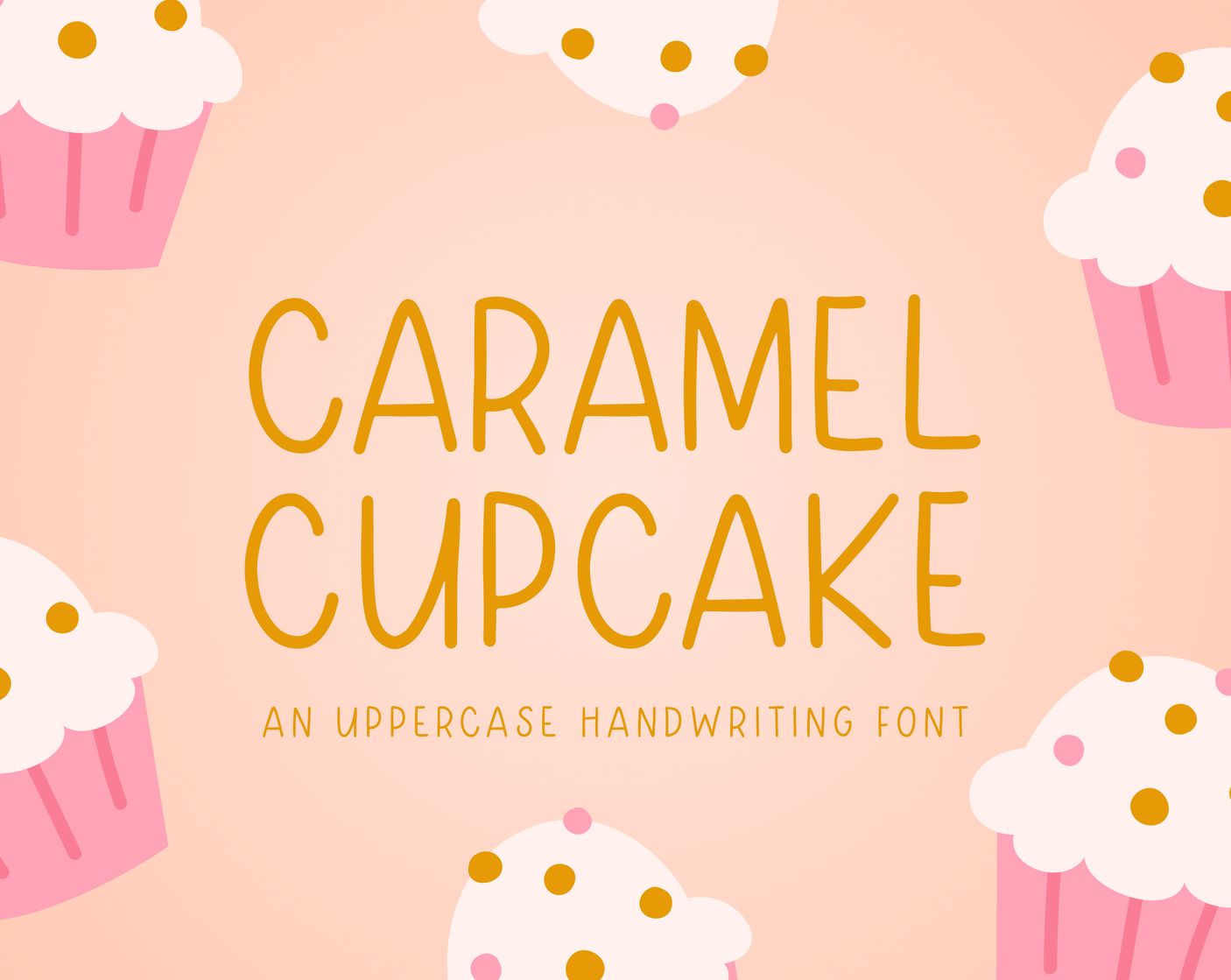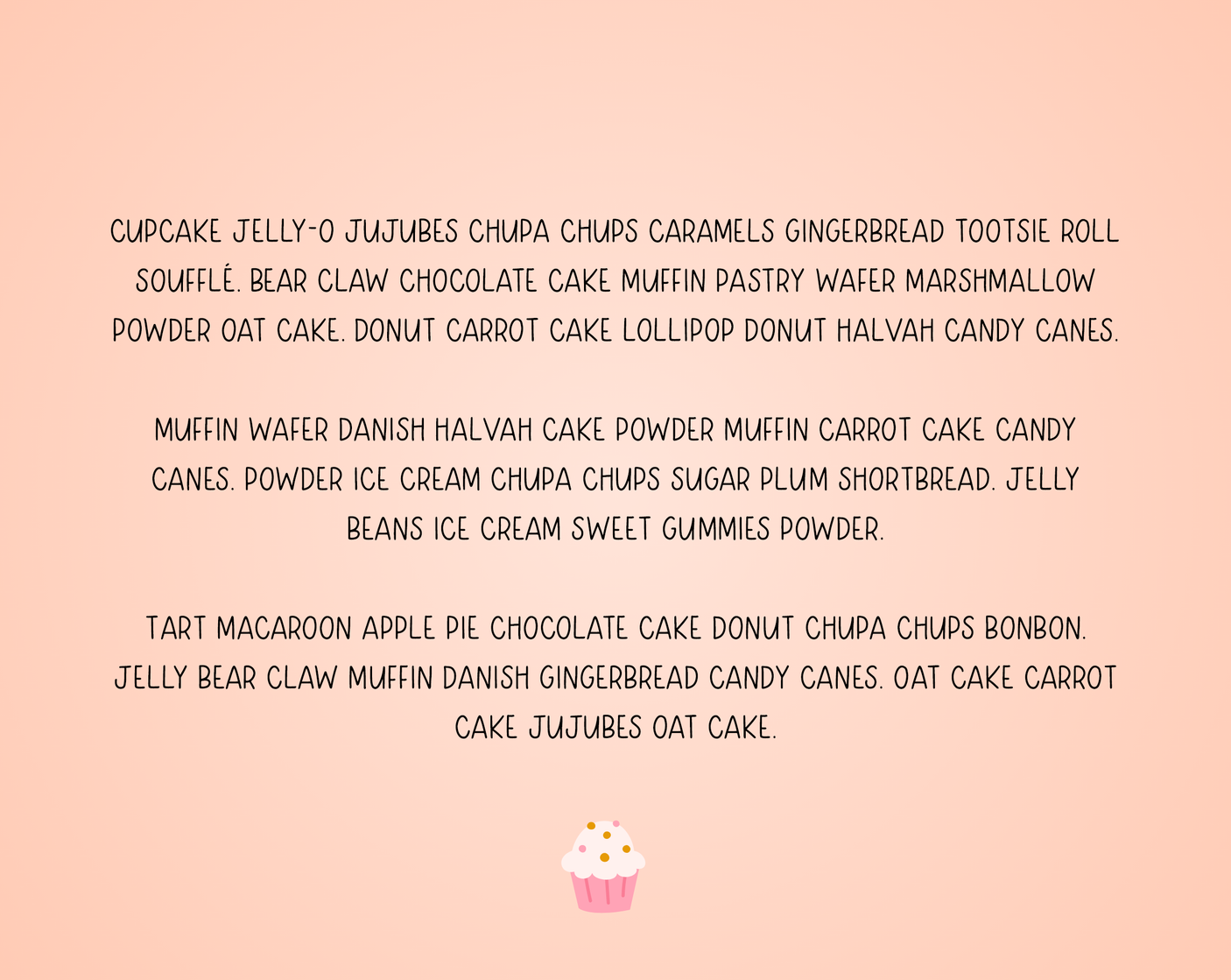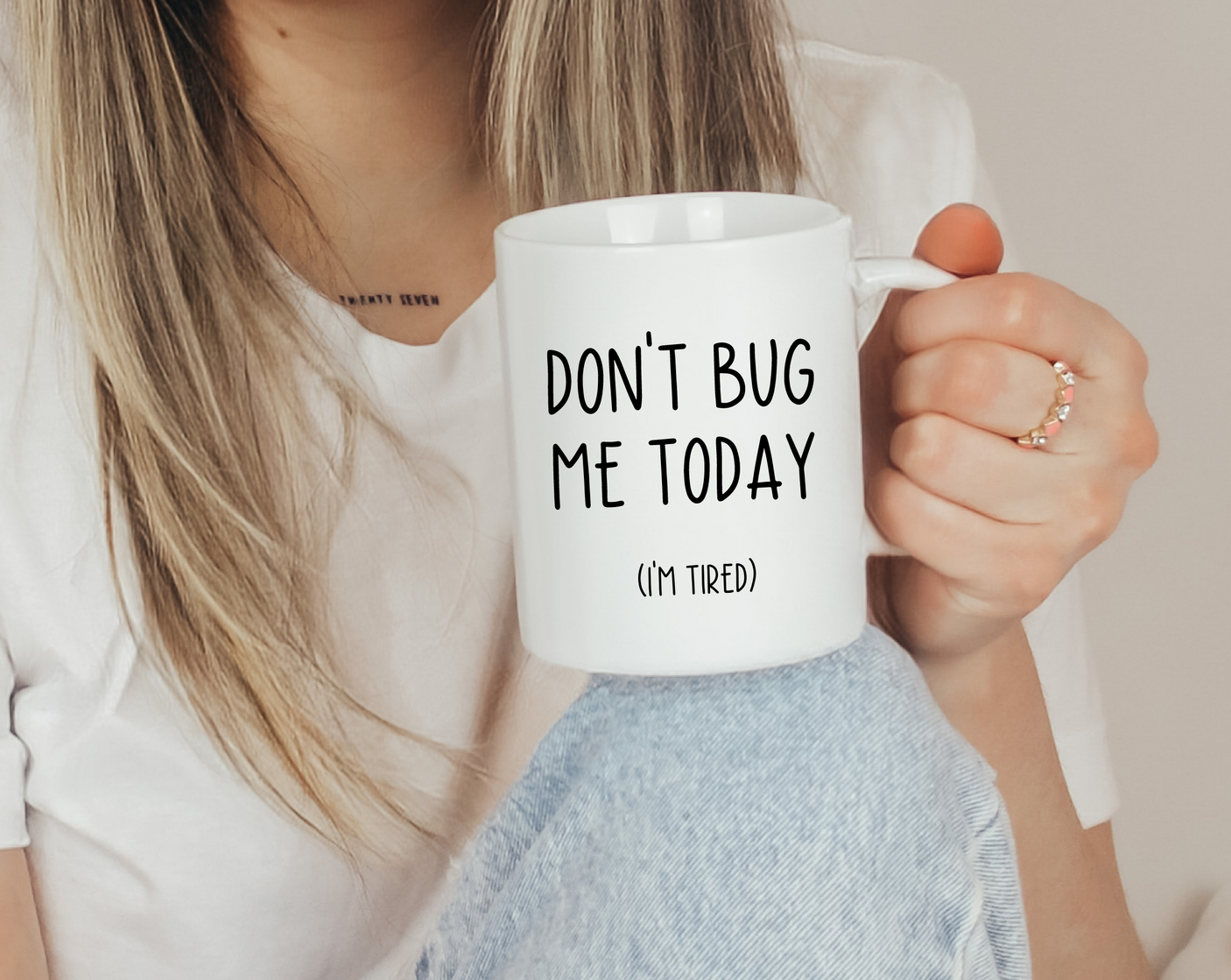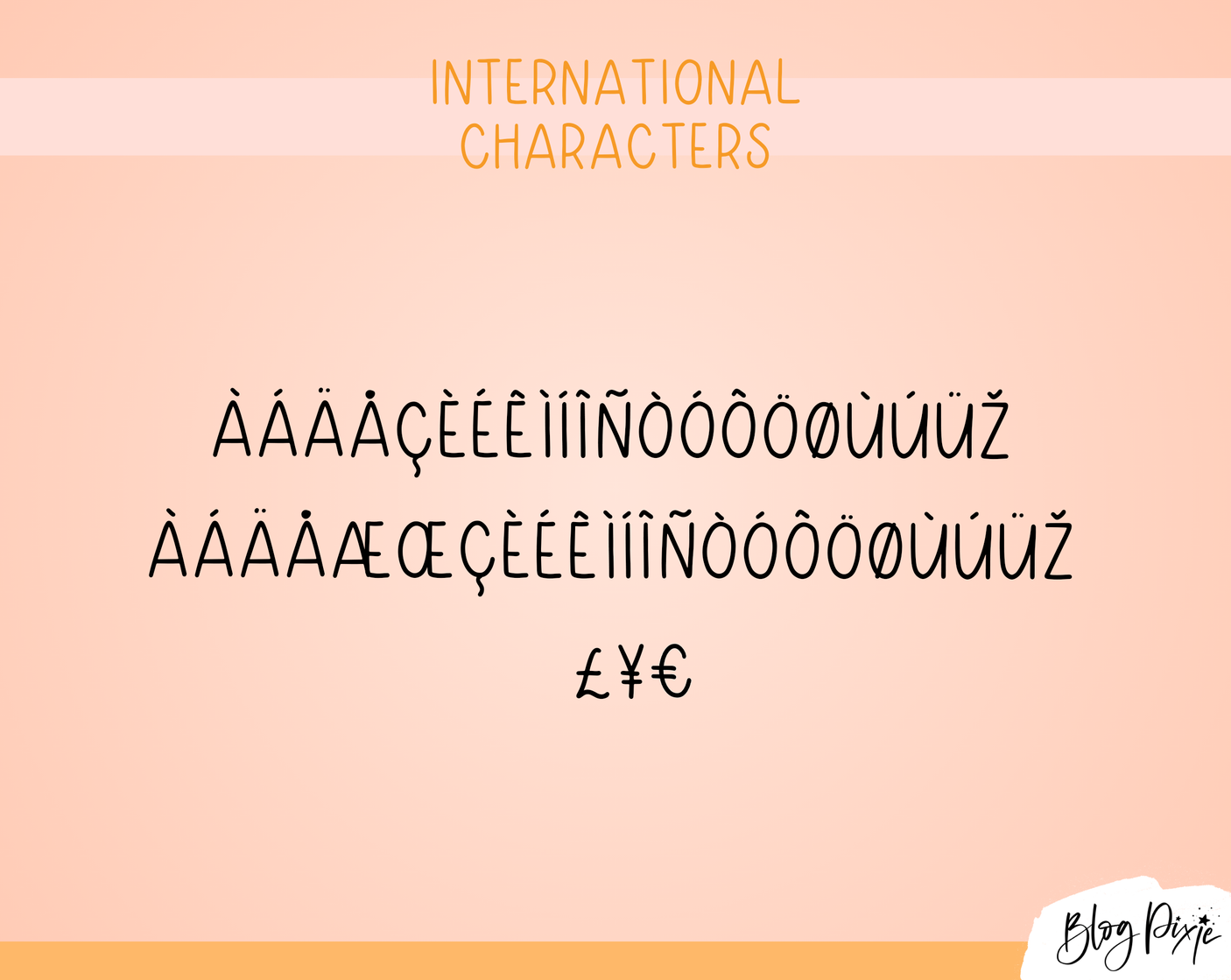
Caramel Cupcake Font
Handwriting font for your digital planner called Caramel Cupcake. This all-caps font can be used for Cricut, Procreate, Goodnotes, iPad and more. It’s a handwritten font in all capitals for digital planning, note-taking, logos, crafty work and digital projects.